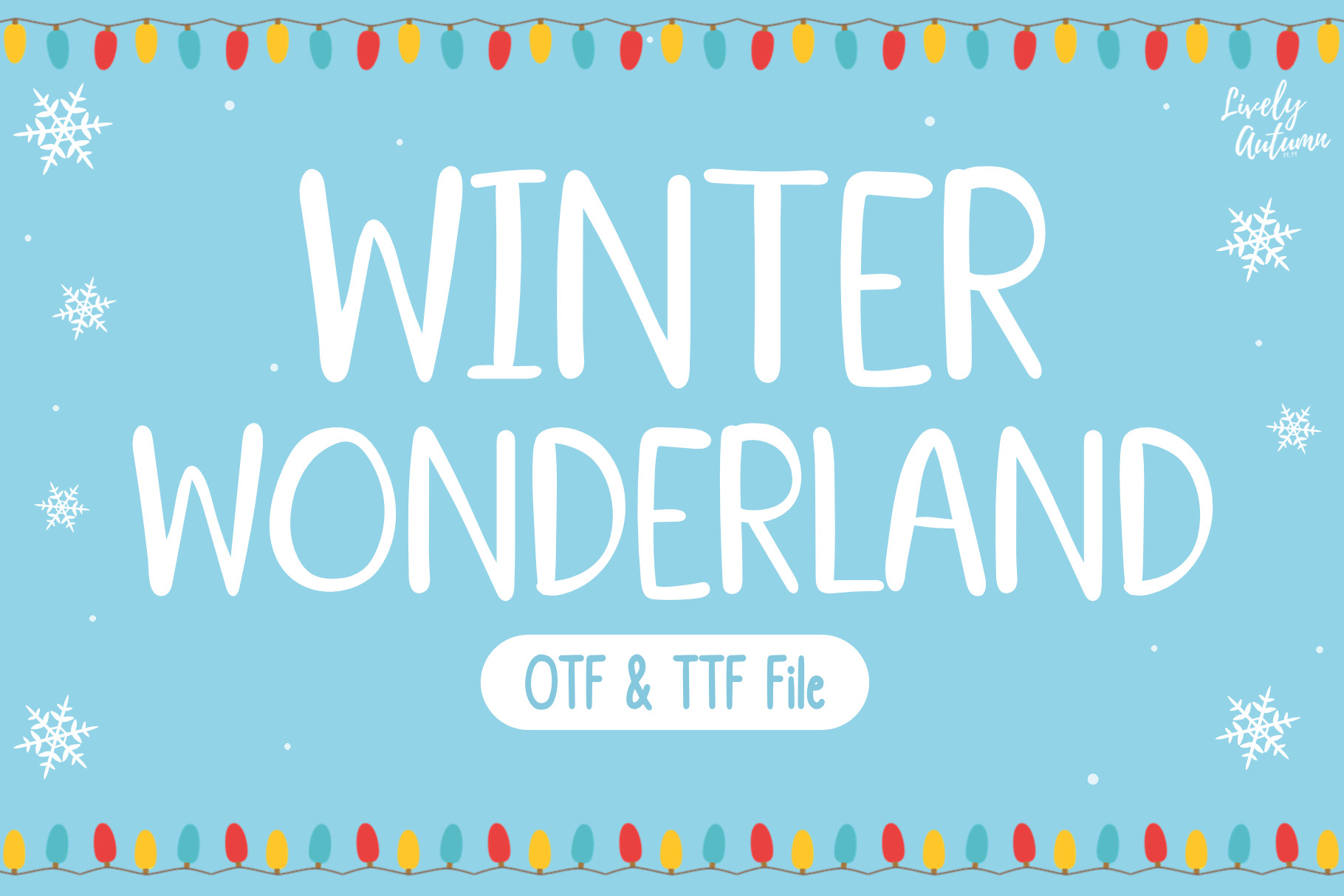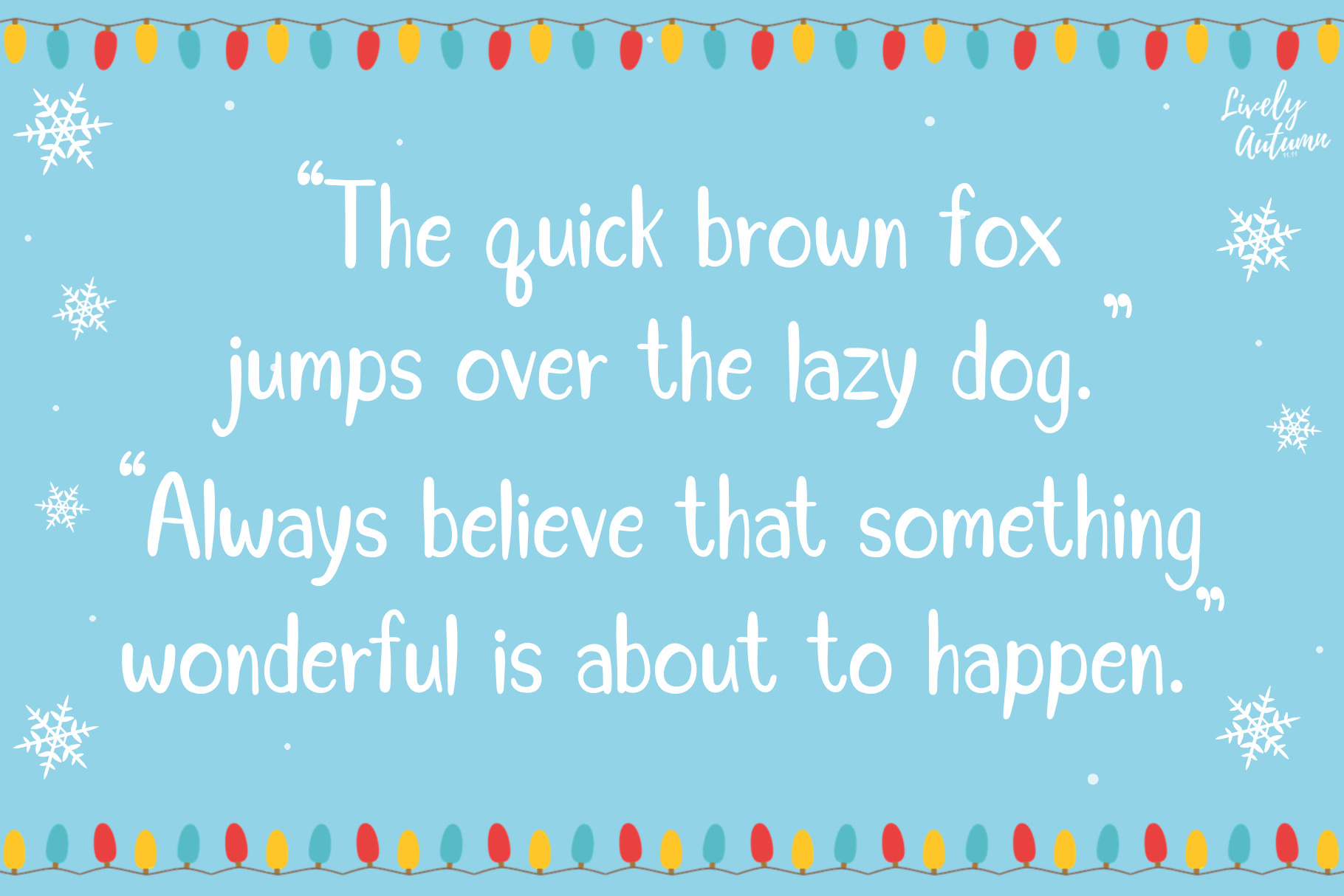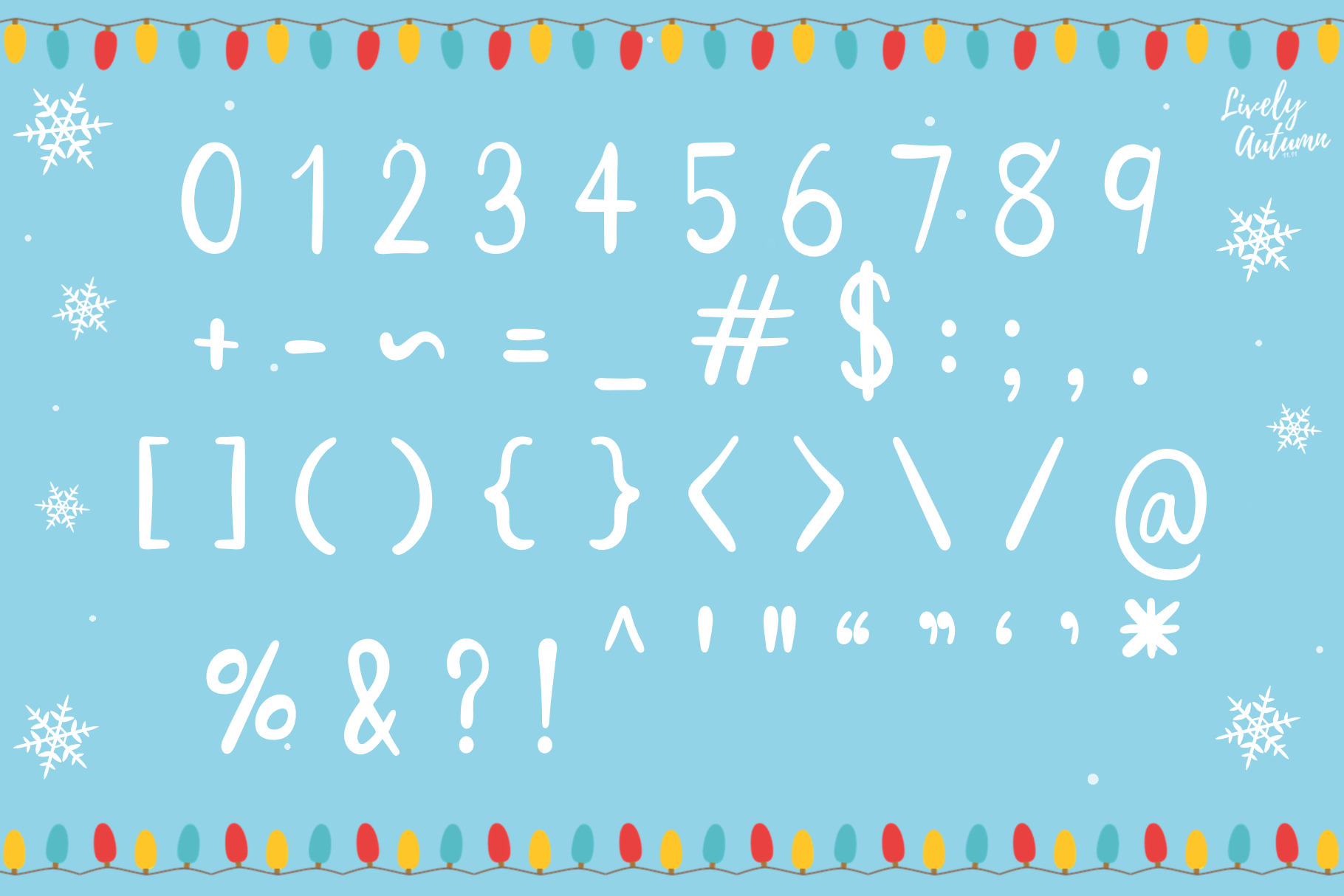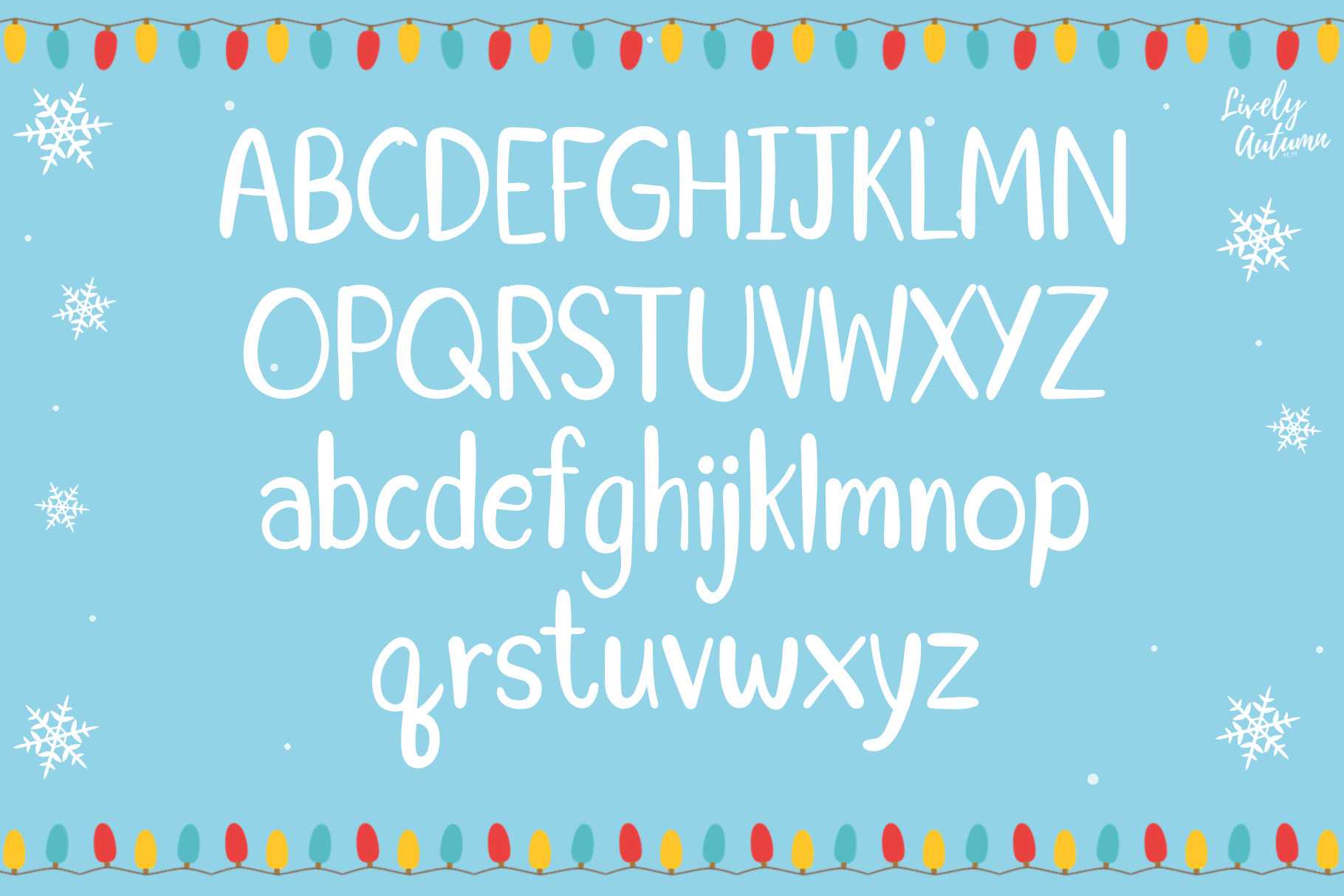
Winter Wonderland Font is a sans serif handwritten font. Perfect for your personal projects, and various projects. From invitations to posters, social media graphics, journals, and much more. You will receive - OTF and TTF File - Font includes: uppercase, lowercase, numbers, and punctuation. | Winter Wonderland | Handwriting Font | LivelyAutumn1111